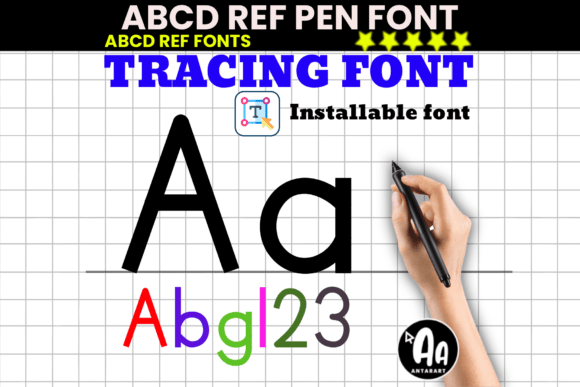
The Abcd Ref Pen Tracing Font: A Game-Changer for Handwriting Practice
As a designer, I’ve had my fair share of struggles when working on projects that require a specific font style. One of my most memorable experiences was when I was tasked with creating a set of printable handwriting worksheets for a client. I spent hours scouring the internet for the perfect font, but nothing seemed quite right. That was until I stumbled upon the Abcd Ref Pen Tracing Font. In this article, I’ll share my experience with this amazing font, its features, and how to make the most of it.
A Personal Story: Finding the Perfect Font
I was working on a project for a client who needed a set of printable handwriting worksheets for kids. The client wanted a font that would mimic a natural pen stroke, making it easy for children to transition from tracing to fluent handwriting. I tried several fonts, but none of them seemed to fit the bill. That was until I discovered the Abcd Ref Pen Tracing Font. Its medium pen weight style and clear letterforms made it perfect for the job.
- ✅ Natural Pen Stroke: The medium pen weight style mimics a natural pen stroke, making it ideal for handwriting practice.
- ✅ Clear Letterforms: Each letter is crafted for clarity, consistent spacing, and legibility.
- ✅ Includes Numbers and Symbols: The font set includes numbers (0–9) and common symbols, making it perfect for full writing tasks.
- ✅ Uppercase and Lowercase Letters: The font includes both uppercase and lowercase letters, making it versatile for various projects.
⚠️ One thing to note is that the Abcd Ref Pen Tracing Font does not support Spanish characters. However, this is a minor limitation, and the font is still perfect for most handwriting practice needs.
The Abcd Ref Pen Tracing Font was designed with traditional school handwriting styles in mind. The creator aimed to craft a font that would help teachers and parents create engaging and effective interactive worksheets. The font’s clear letterforms and natural pen stroke style make it perfect for handwriting practice and educational resources.
Q: What is the Abcd Ref Pen Tracing Font?
A: The Abcd Ref Pen Tracing Font is a print handwriting font designed for teaching the alphabet and letter formation.
Q: What features does the font include?
A: The font includes uppercase and lowercase letters, numbers (0–9), and common symbols.
Q: Is the font suitable for Spanish language learners?
A: No, the font does not support Spanish characters.